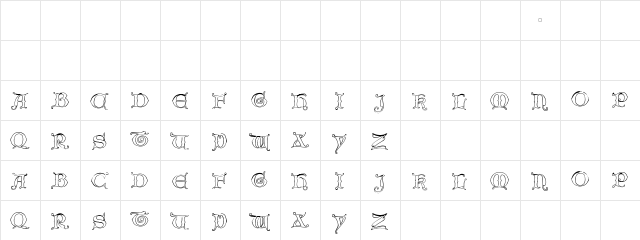
CSDFancyCaps-Normal Regular
Design Context for CSDFancyCaps-Normal
CSDFancyCaps-Normal is a composed and adaptable typeface that performs quietly and consistently across a wide range of design contexts.